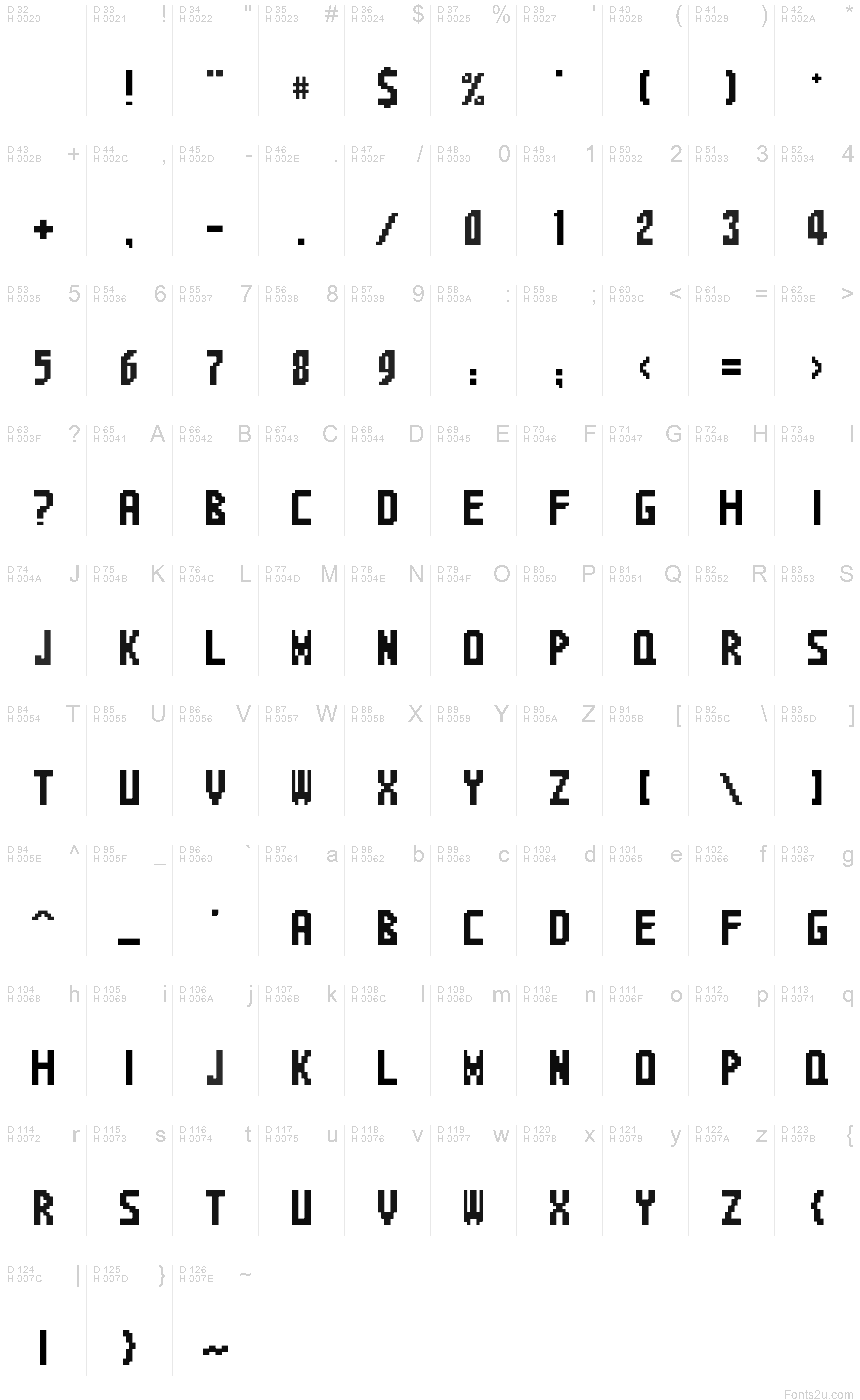
Sonic Advanced 2 Regular
Font from Sonic Advance 2 for the GBA, some were glyphs were custom, made using Fontstruct.
Designer description: Font inspired from the Sonic Advance 2 and 3 HUD, this is a WIP, adding some latin in the near future. Sonic series copyrighted by SEGA and Sonic Team.